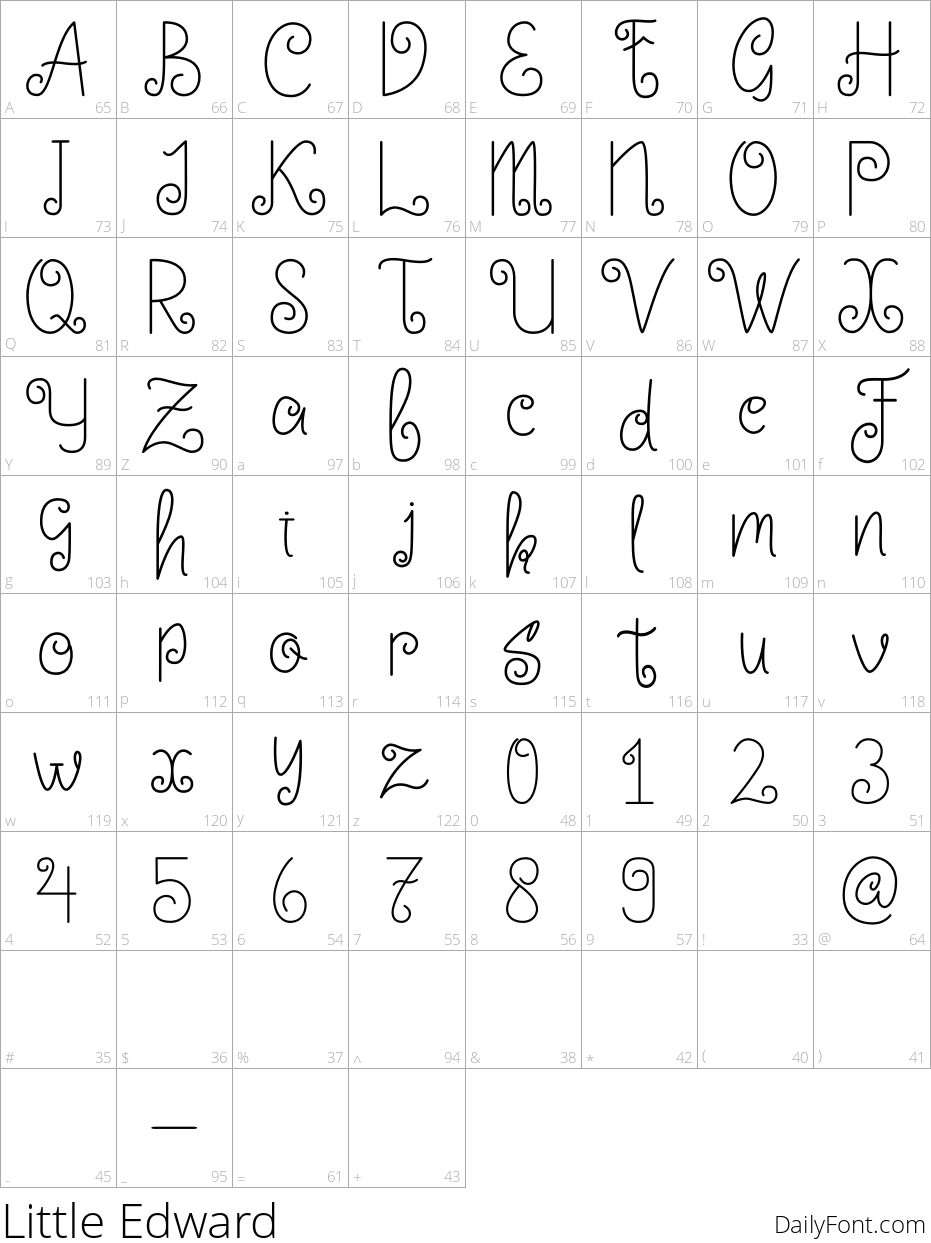
Little Edward
Little Edward, created by Ef Studio, is a distinctive handwritten font that combines a casual and playful aesthetic with a touch of elegance. The characters exhibit a consistent weight, making them easy to read while retaining the charming imperfections characteristic of true handwritten text. Each letter has a slightly irregular shape, giving the font a warm and personal feel that is ideal for projects needing a human touch.
The uppercase letters in Little Edward maintain a clean and straightforward design, balancing simplicity with subtle playful flourishes. The lowercase characters, while cohesive with their uppercase counterparts, introduce a more whimsical and fluid motion, exuding a relaxed and friendly vibe. Both uppercase and lowercase letters have rounded edges and smooth curves, contributing to the font’s inviting nature.
The numbers and punctuation provided in the font are also meticulously crafted, ensuring they align with the handwritten style of the alphabetical characters. The numbers are proportionate, with slight variances that enhance the hand-crafted aesthetic. Punctuation marks such as commas, periods, and question marks are designed with the same care, ensuring legibility and consistency throughout any text.
Little Edward is versatile and adaptable, fitting comfortably in various design contexts. Whether used for personal notes, creative projects, or branding that seeks to convey a sense of authenticity and approachability, Little Edward’s charm is hard to overlook. The font’s natural look and feel can enhance invitations, social media graphics, and other print or digital products, making it a valuable addition to any designer’s toolkit.